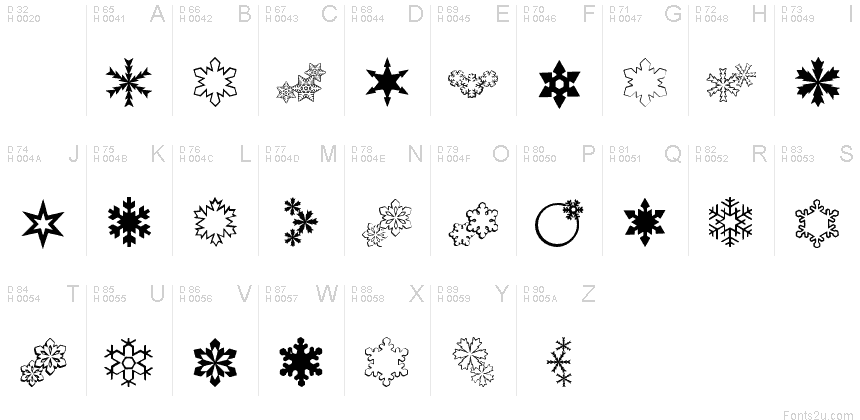
Ryp Sflake4 by Robyn Phillips of Skeldale House Treasures is a free nature dingbat font devoted to snowflake symbols. Its collection ranges from airy, angular outlines to dense starbursts and branching crystal forms. Each flake has a distinct silhouette.
Seasonal packaging and event graphics benefit from that variety, especially when repeated into borders, scattered patterns, or wintry clusters. The symbols also suit holiday cards and children's publishing, where they can become emblems or patterned surfaces that give a product line a recognizable winter identity.